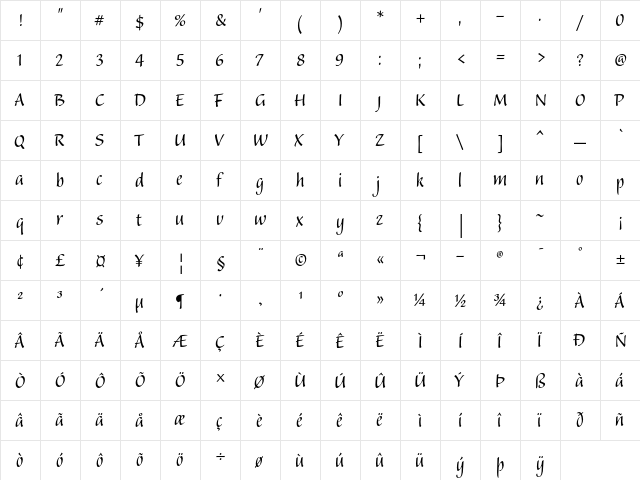
Balzano Std Regular
| Designer | John Benson |
Design Context for Balzano Std Typeface
Balzano Std is a composed and adaptable typeface that performs quietly and consistently across a wide range of design contexts.